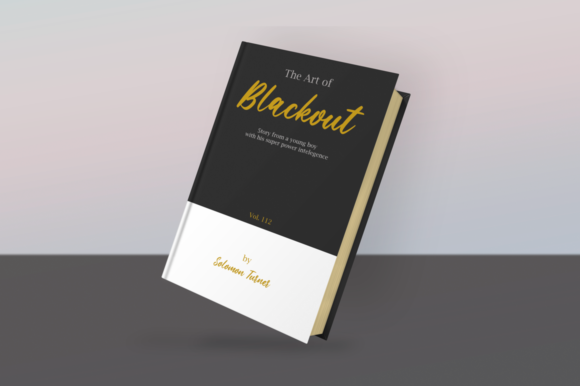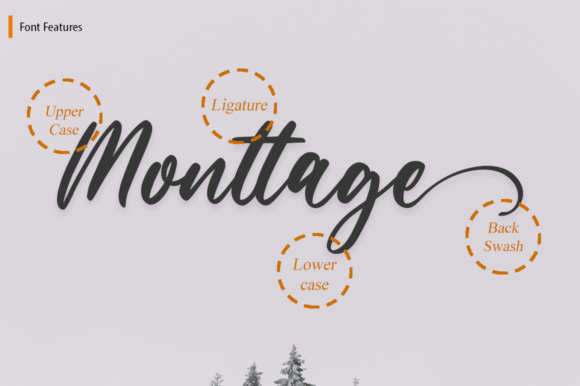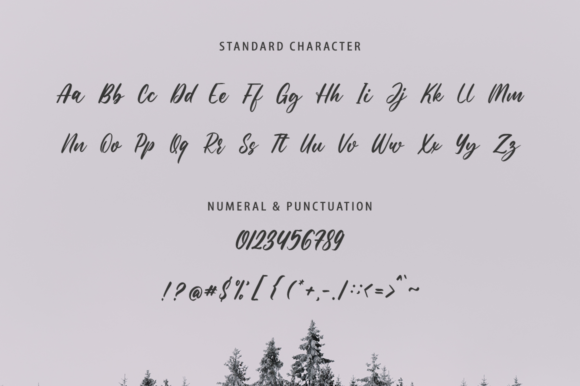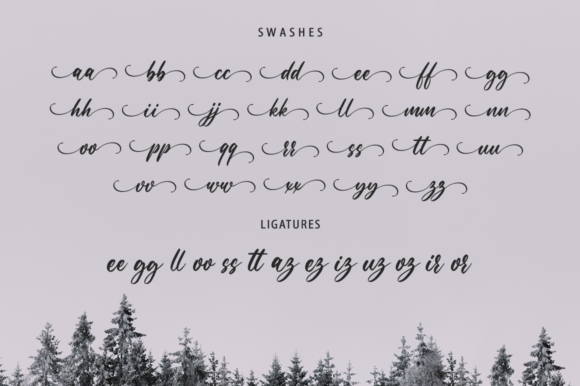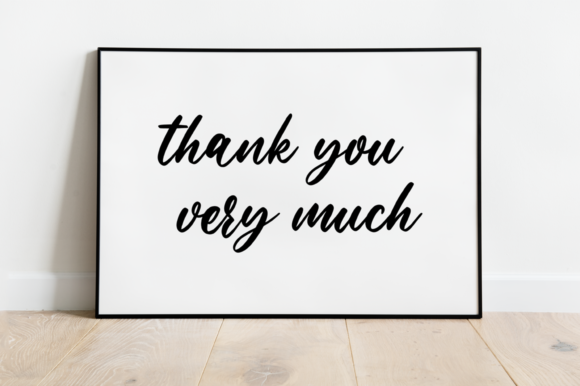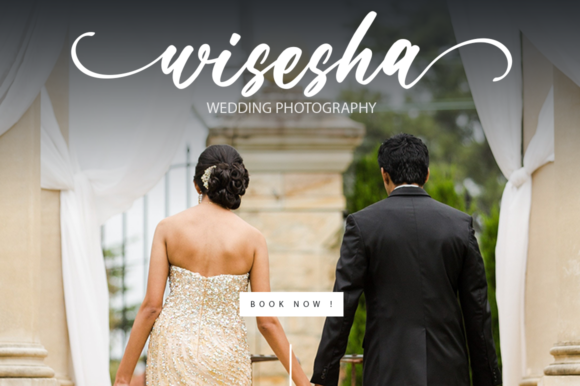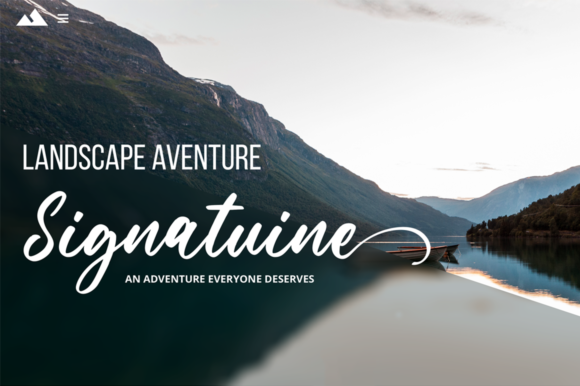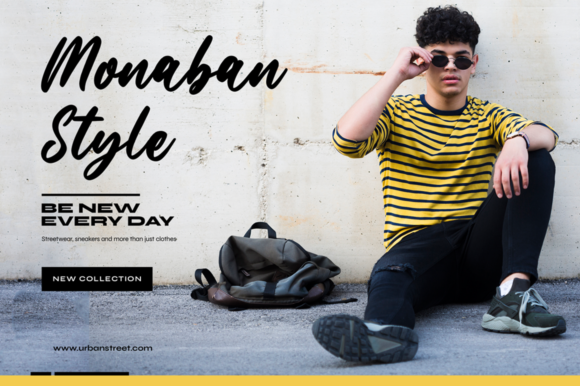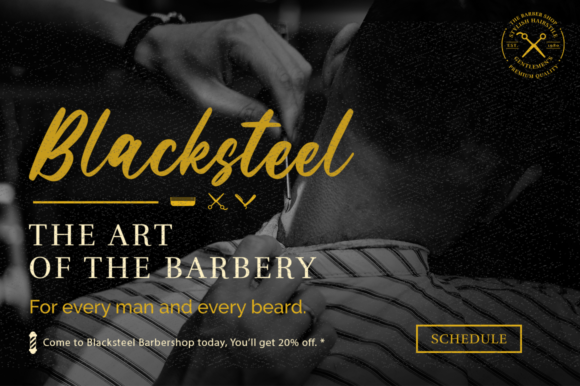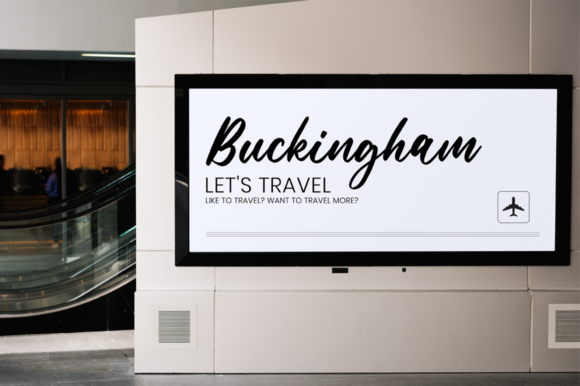
Silhouette Font
About Silhouette Font
Silhouette is a lovely, well balanced paint brushed script font. This font was particularly crafted for those who need a beautiful and refreshing look to their designs.